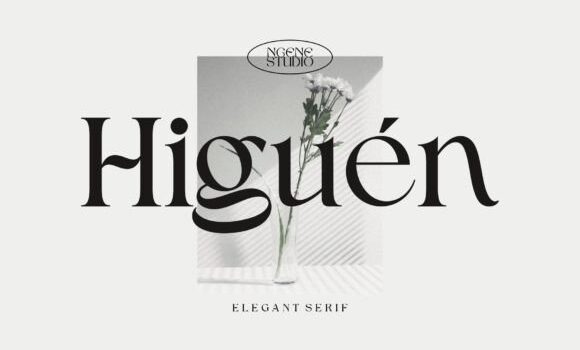
higuen
Higuen Font – Free Download Introduction to Higuen Font Higuen is a sophisticated, charming serif font with a fashionable touch. 📸 Preview Gallery 6 images 📌 Product Name Higuen Font 👤 Author Ngene 📂 Category Explore ⬇️ Download Higuen Font